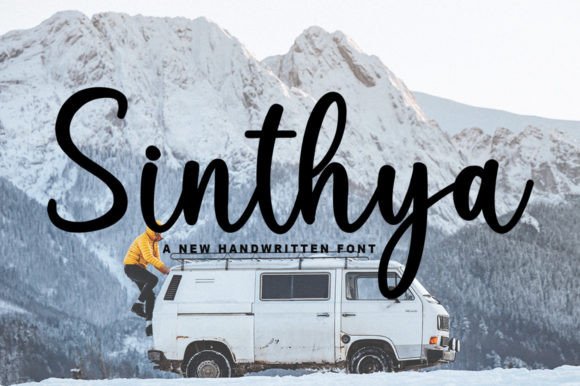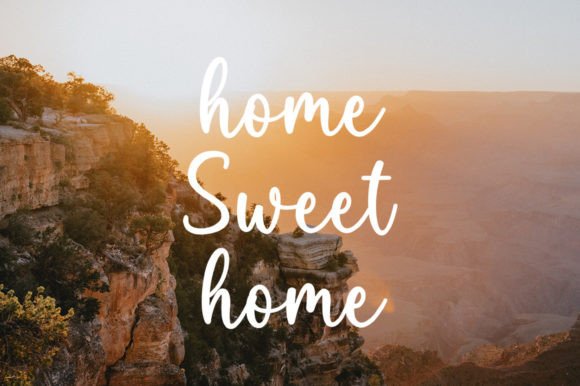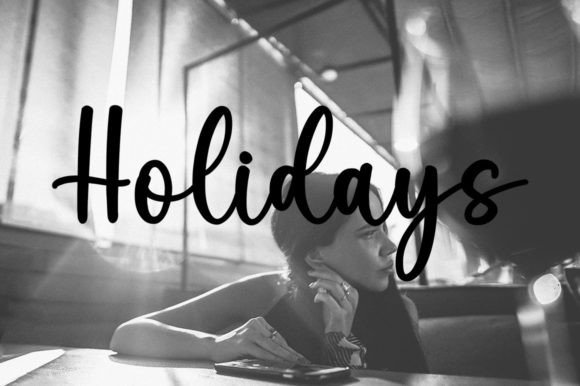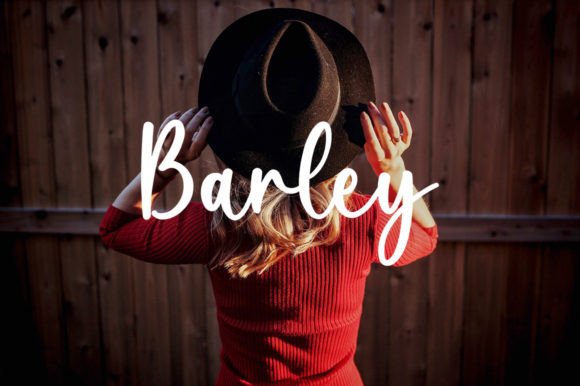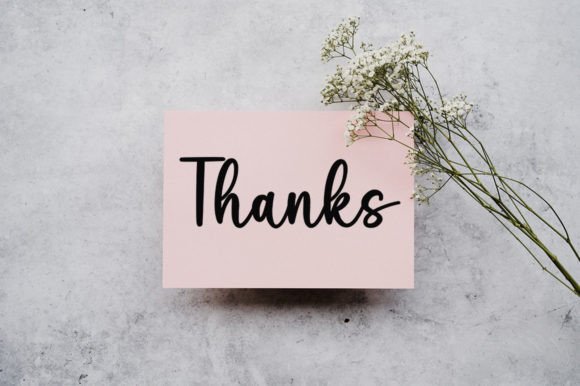
Sinthya
About Sinthya
Sinthya is a dazzling script font. This font is neatly crafted and highly detailed. Whatever the topic, this font will be a wonderful asset to your font library, as it has the potential to enhance any creation.